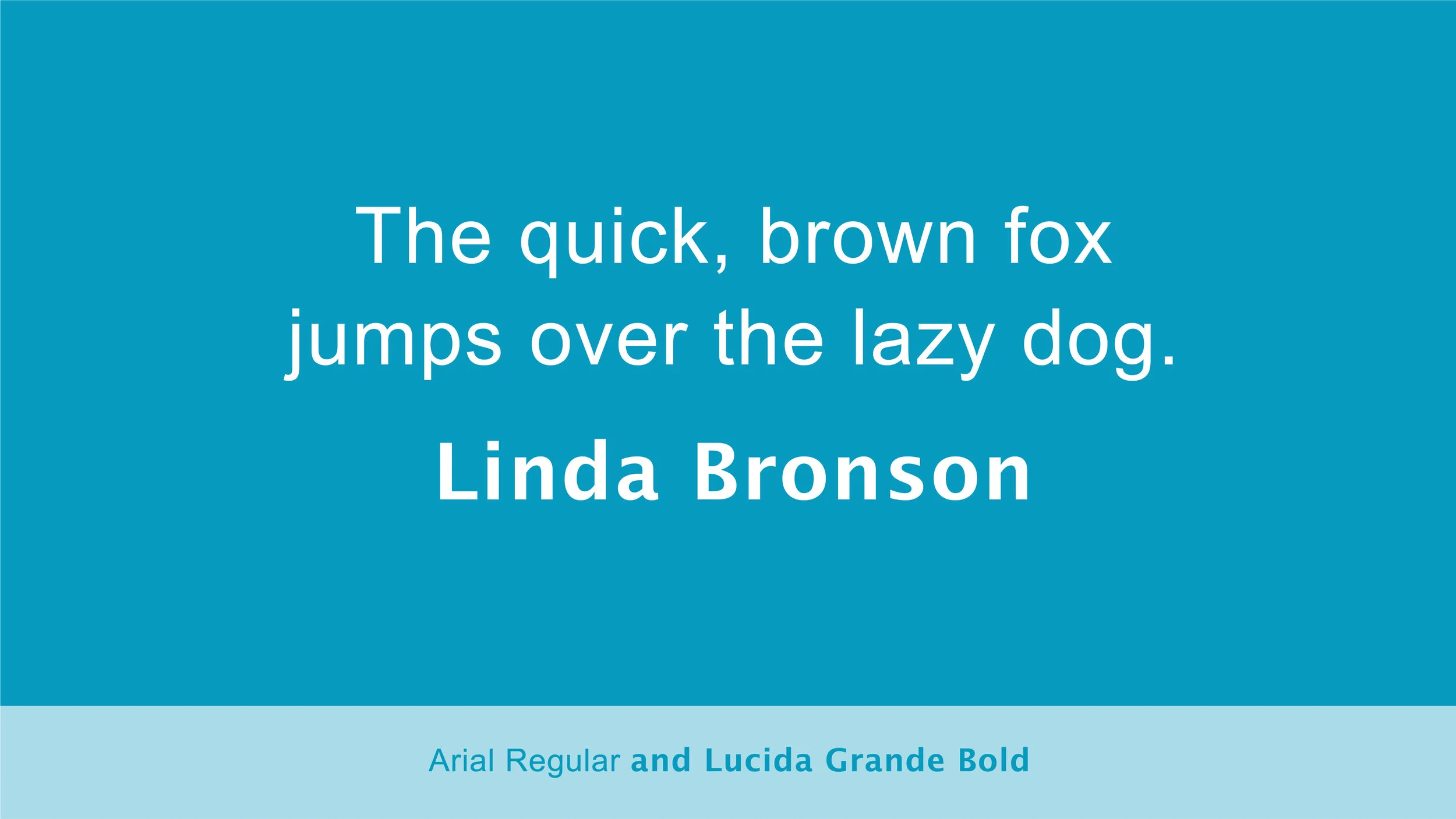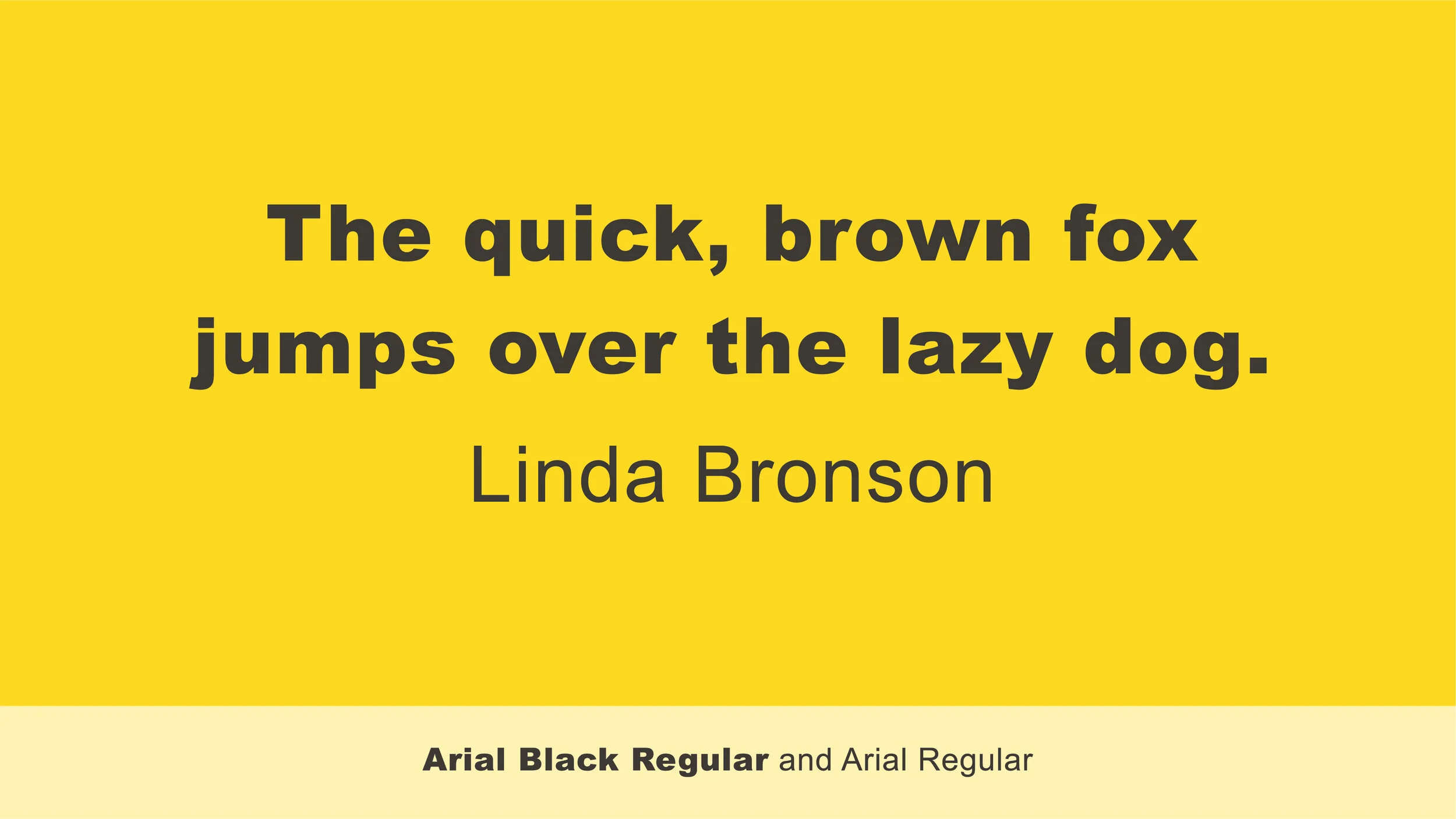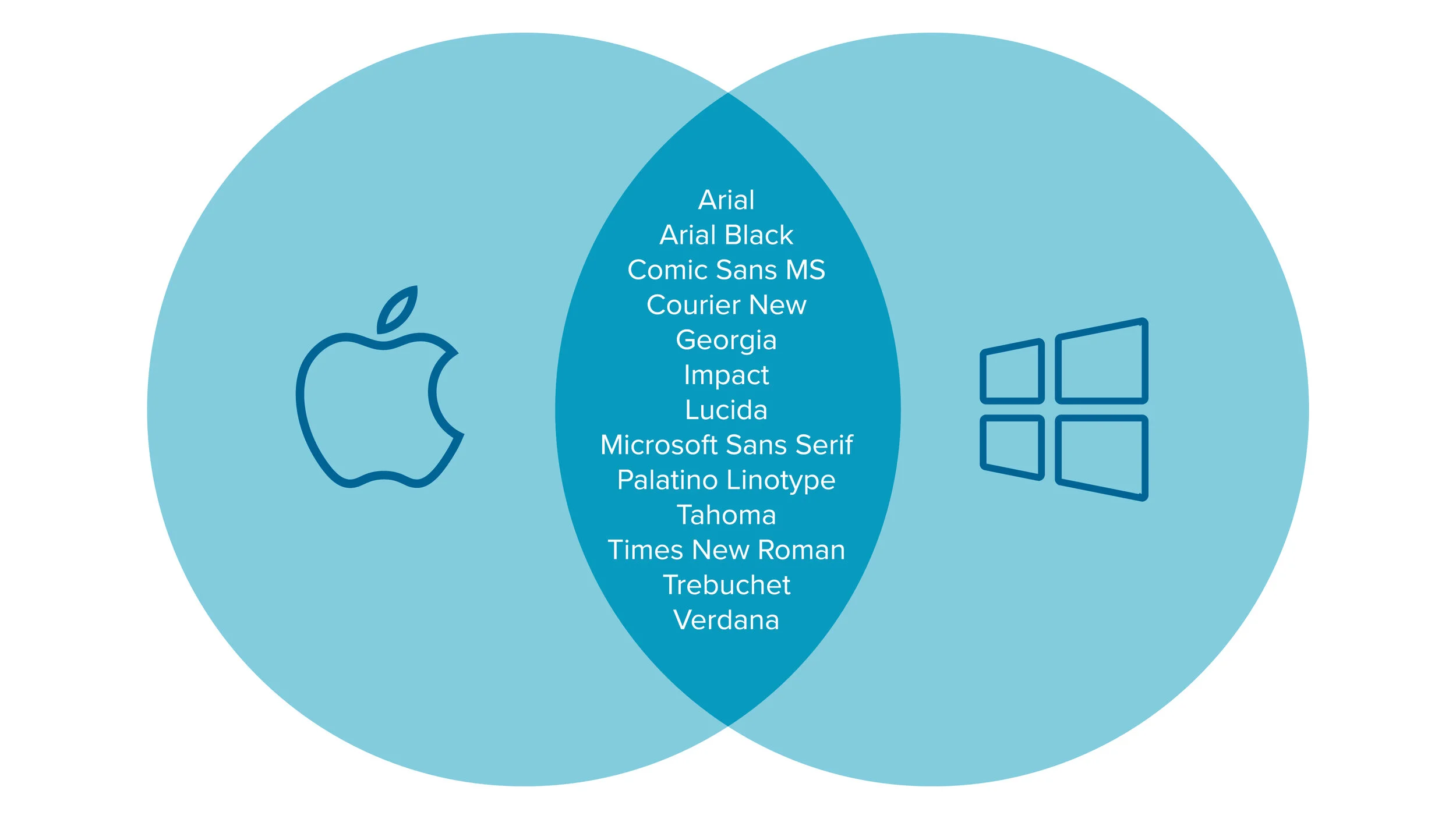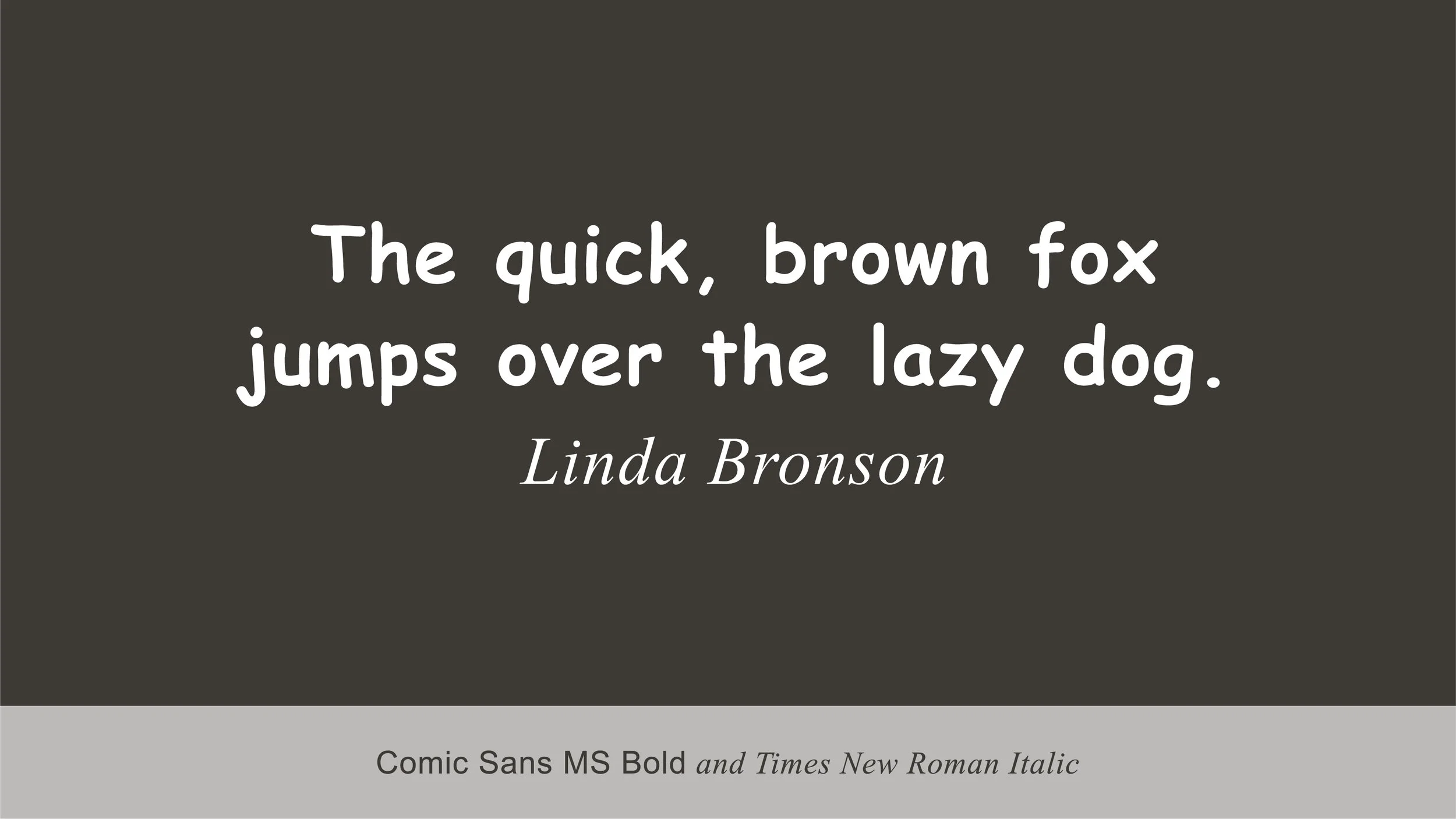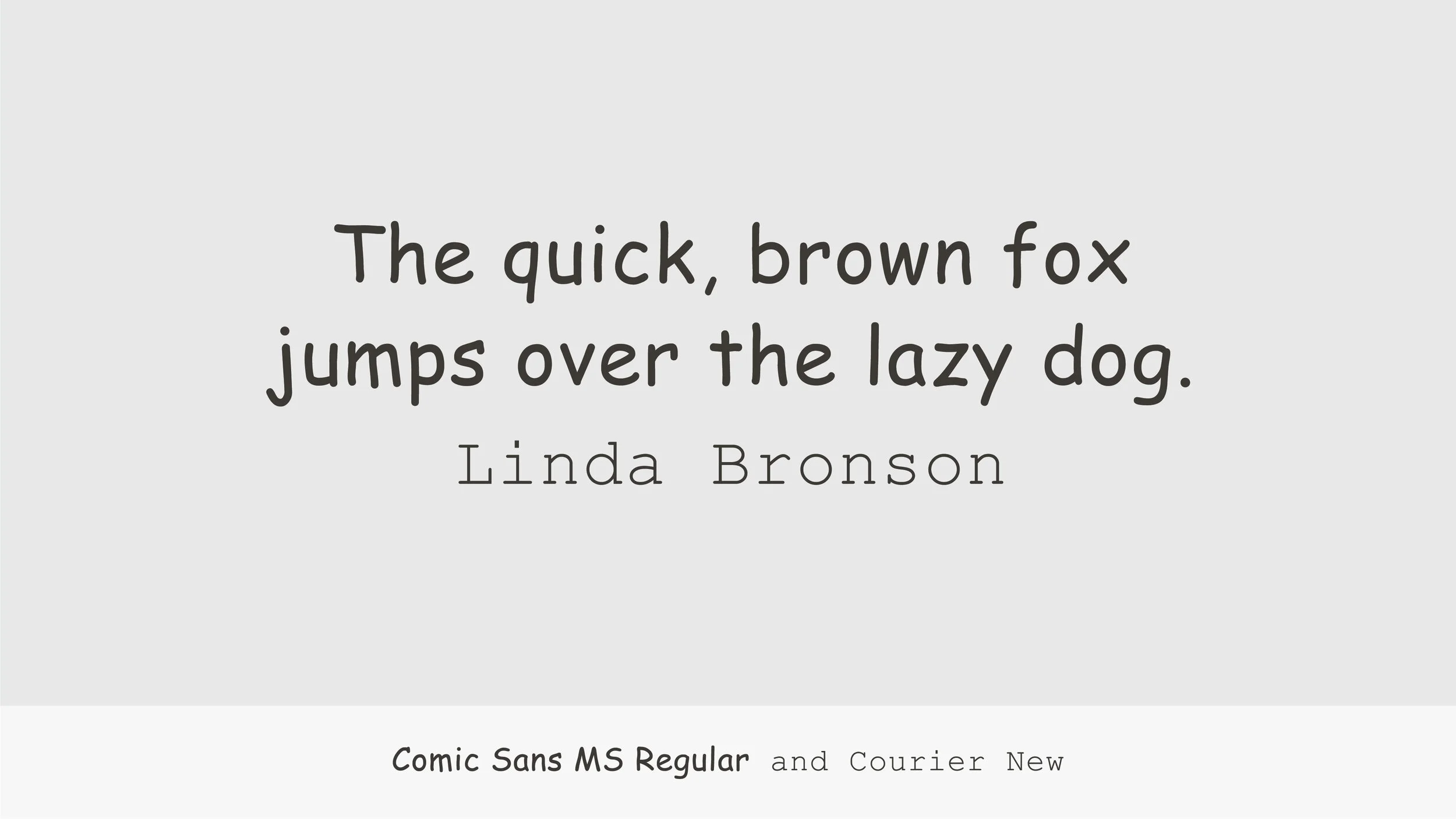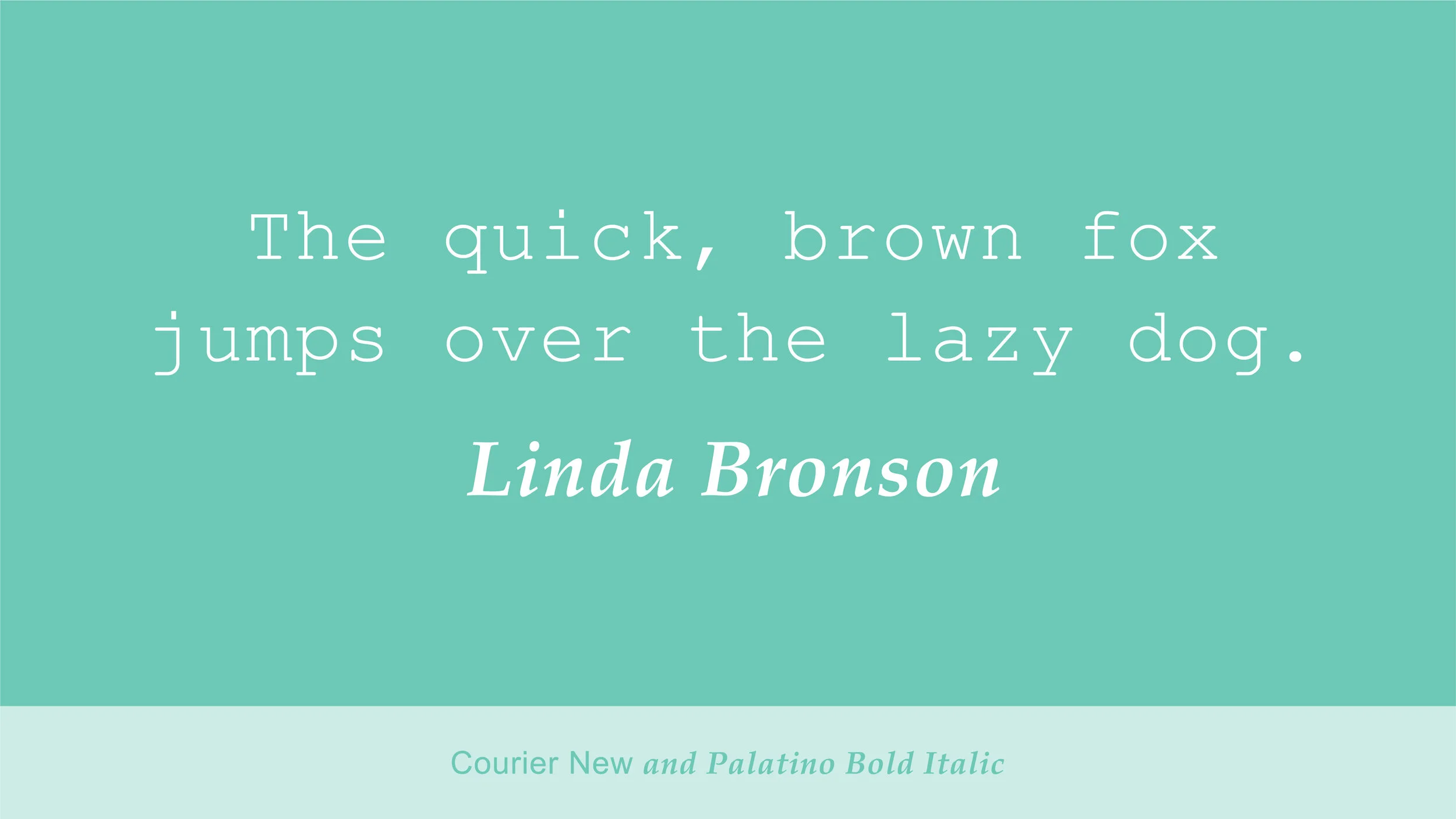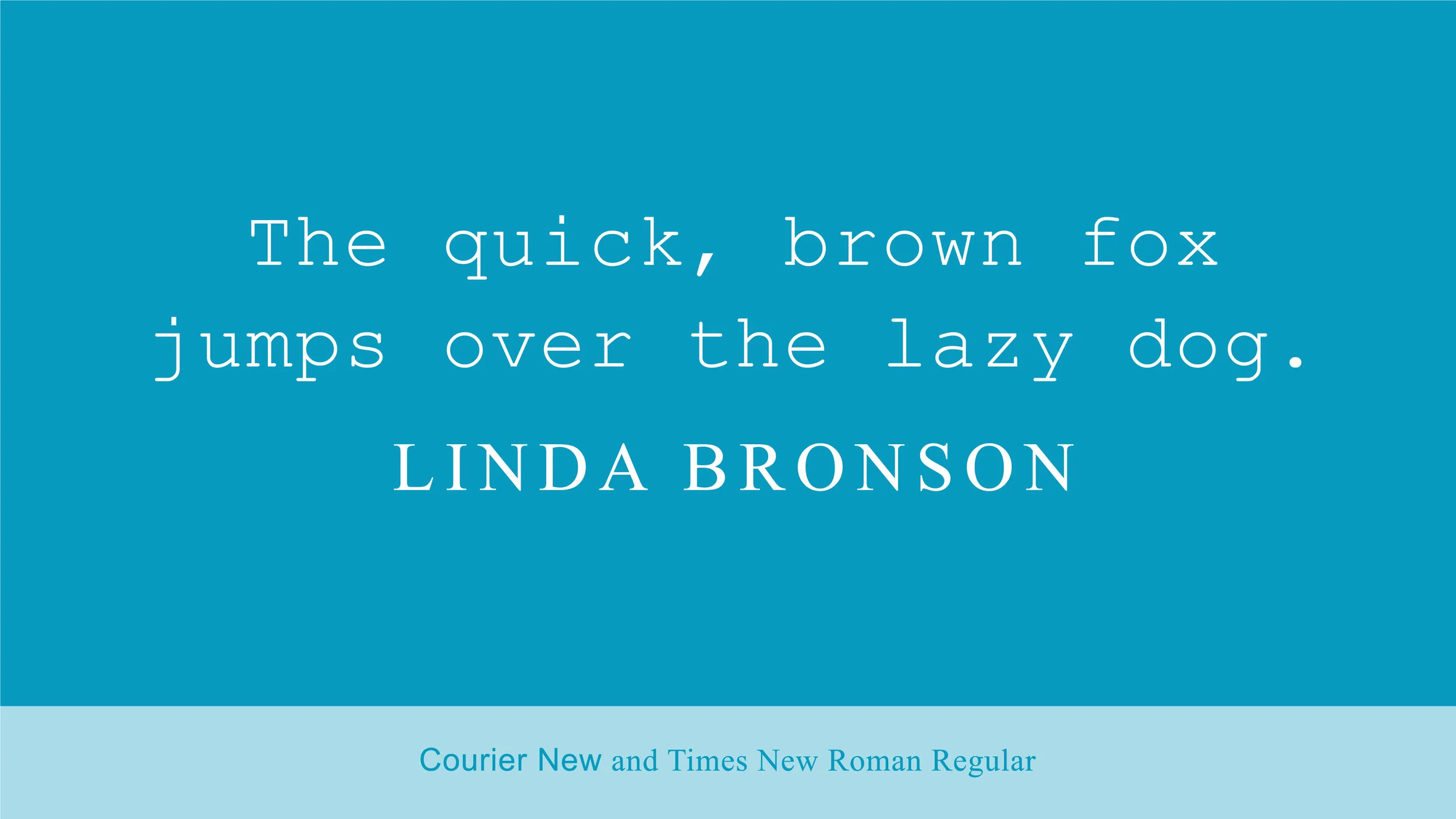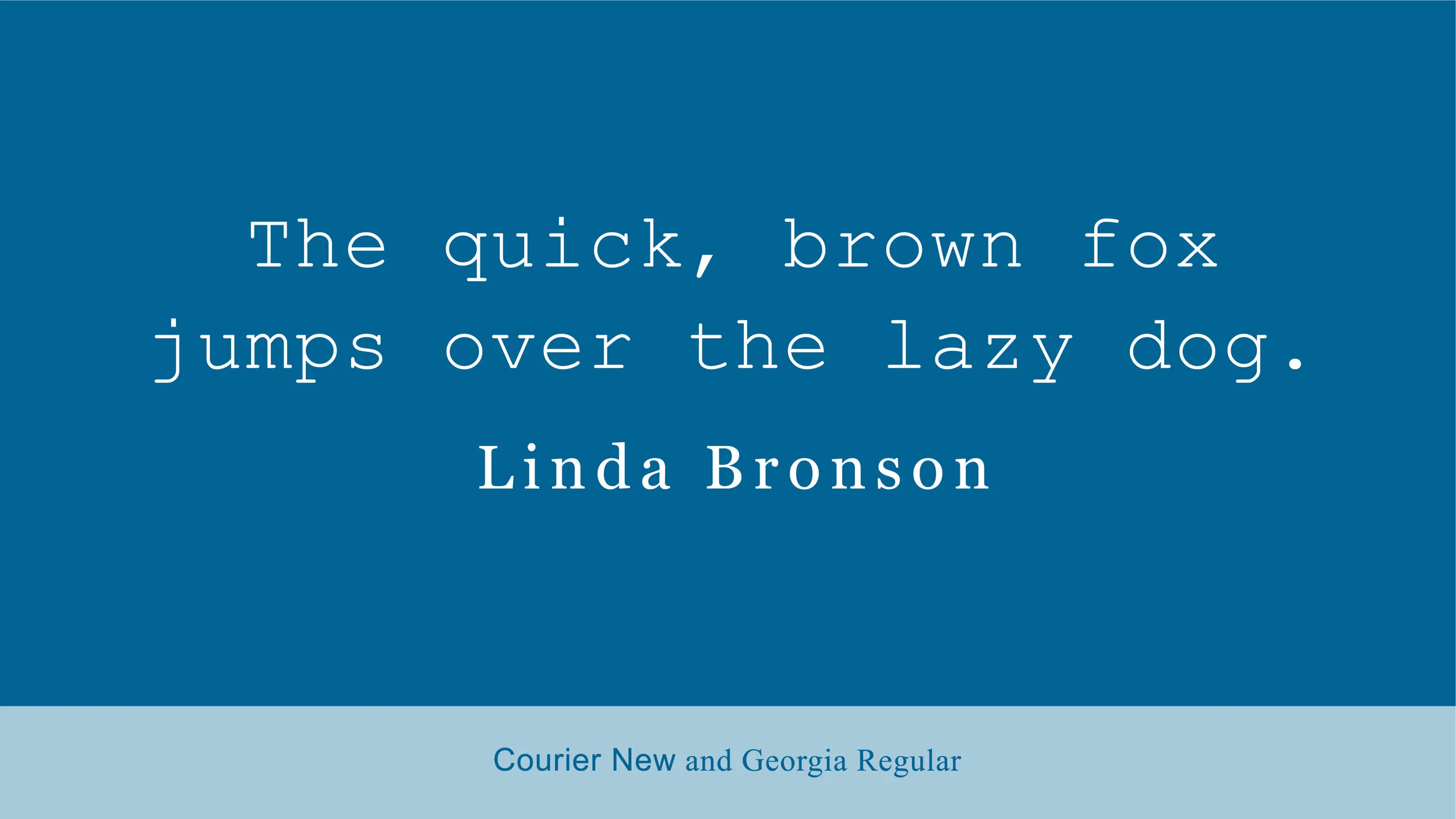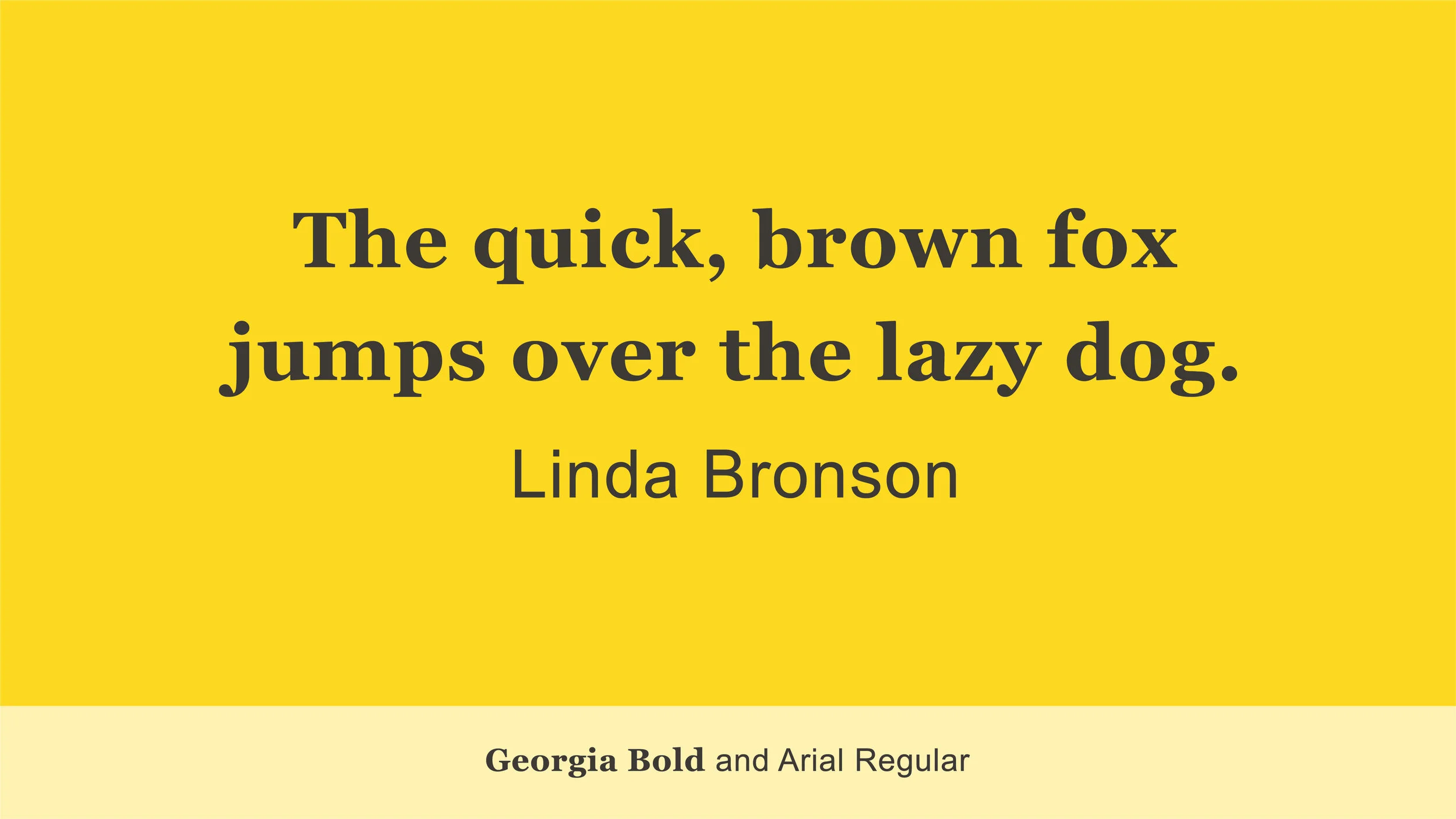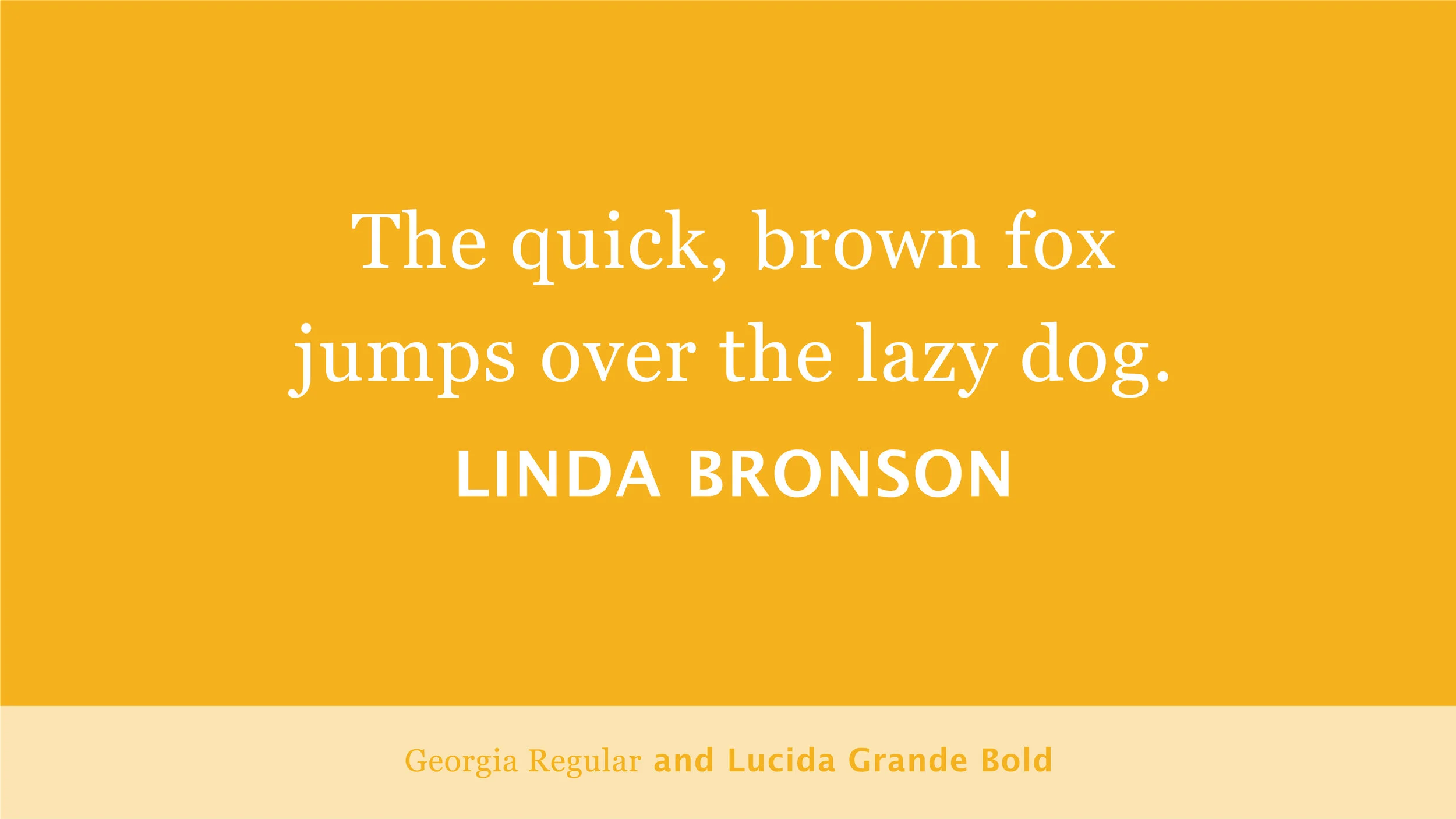
Deciding on the typeface to use throughout your user interface can simultaneously be incredibly fun—and frustrating beyond measure. Almost everyone has an opinion about fonts, with input from others being unhelpful at times. Each device using your software potentially has different fonts installed on it. Throw in users across both macOS and Windows and you have even more typefaces entering the variables arena.
If you’re striving for cross-platform consistency, the good news is there are twelve system standard fonts found on both Mac and Windows computers. Sticking to a combination of them is generally the safest bet in these scenarios. Here are the twelve:
Arial and Arial Black
Comic Sans MS
Courier New
Georgia
Impact
Lucida
Microsoft Sans Serif
Palatino Linotype
Tahoma
Times New Roman
Trebuchet
Verdana
It’s worth noting that you should anticipate slight variations in typeface design when you compare Mac and Windows font files. That’s a result of different foundries creating some of these classic typefaces, as well as file type limitations. However, they’re close enough that few (if any) users would notice.
Combining multiple typefaces is a great way to help improve your overall interface design to create an effective hierarchy. Hierarchy is achieved through a combination of unity and variety. The various weights within a font family can provide unity, while an accent typeface design or two can provide variety.
Here are some suggested pairings for each of these twelve cross-platform typefaces.
Arial and Arial Black
Technically two different fonts, but we’re grouping them together here as they belong to the same family. We prefer Helvetica, but until it’s available on Windows computers, we’ll recommend Arial.
Georgia
Lucida Grande
Times New Roman Regular
Comic Sans MS
PK Information does not officially recommend Comic Sans MS in your interface. However, there’s evidence that it’s a more readable typeface for individuals who have dyslexia. Situationally, it may be an appropriate choice for your database.
Times New Roman
Courier New
Georgia
Palatino
Times New Roman
Georgia
Lucida Grande
Tahoma
Times New Roman
Impact
Courier New
Microsoft Sans Serif
Palatino
Times New Roman
Lucida Grande
Palatino
Times New Roman
Verdana
Microsoft Sans Serif
Arial Black
Courier New
Georgia
Palatino
Arial
Microsoft Sans Serif
Tahoma
Trebuchet
Tahoma
Courier New
Georgia
Palatino
Times New Roman
Arial
Comic Sans
Courier
Impact
Lucida
Microsoft Sans Serif
Tahoma
Trebuchet
Verdana
Trebuchet
Courier New
Georgia
Palatino
Verdana
Courier New
Georgia
Times New Roman